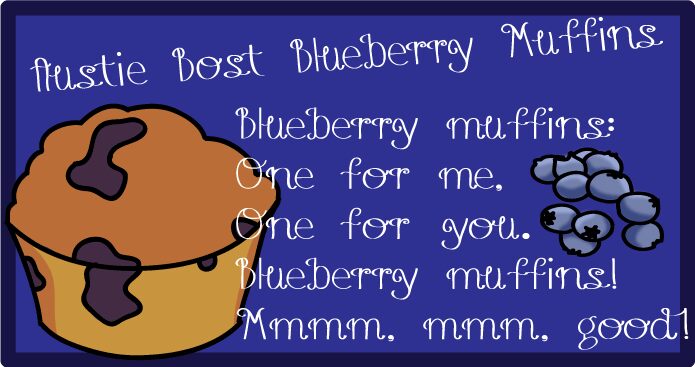
Austie Bost Blueberry Muffins by Austin Owens is a free curly display font with lanky, looping letters and a playful hand-drawn finish. Thin hairlines sweep into broad rounded strokes, and exaggerated curls give the alphabet an airy silhouette.
Packaging is especially suited to its whimsical shapes, particularly bakery boxes, confectionery labels, and cafe menus. The looping forms echo piped icing and ribbon, letting the lettering become part of a food-themed illustration rather than simple naming. It also suits party invitations and children's publishing with a lighthearted storybook bent.
This is one of my first fonts. Due to a corrupted file, some issues cannot be fixed. The regular alphabet functions correctly, but spacing for characters containing symbols is incorrect.